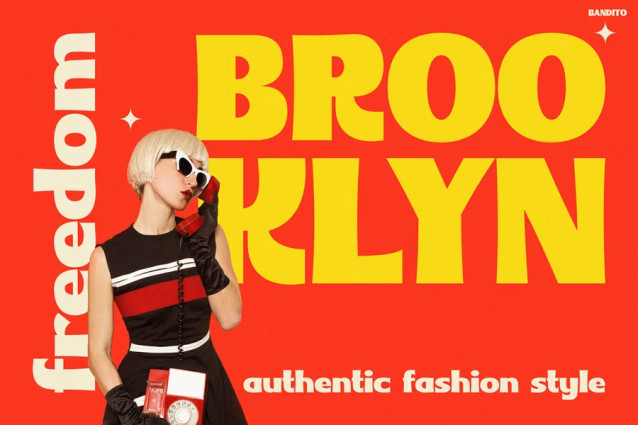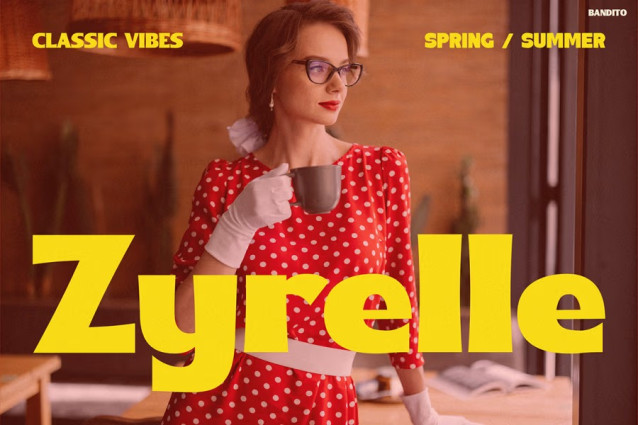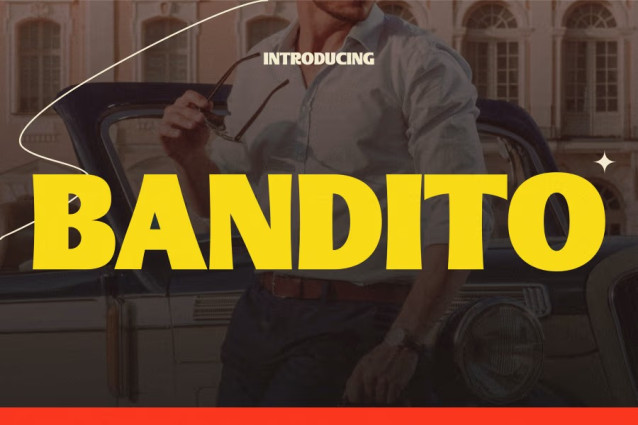
Bandito Font bursts with personality and energy. This typeface instantly brings back the golden era of bold retro design while adding a fresh, modern edge. With its sharp curves and strong geometric lines, every letter projects confidence and rhythm. Moreover, the font radiates both nostalgia and creativity, making it perfect for designers who want to blend the past and present seamlessly.
Unlike ordinary display fonts, BANDITO stands out with a balance between power and charm. Its bold structure ensures clarity, while its stylish forms give your text an unmistakable retro character. As a result, every headline, poster, or digital visual becomes more captivating and memorable. Additionally, BANDITO’s clean details make it just as effective in small branding elements as in large-scale designs.